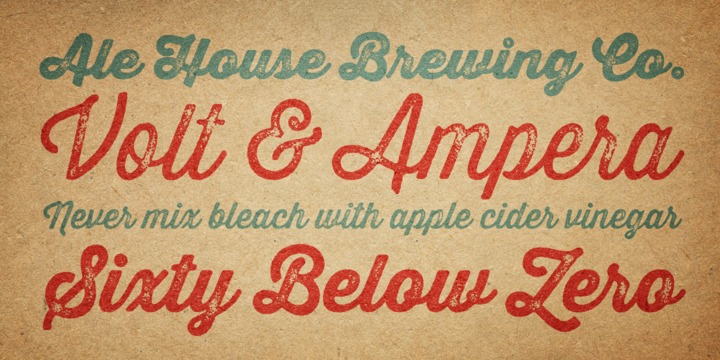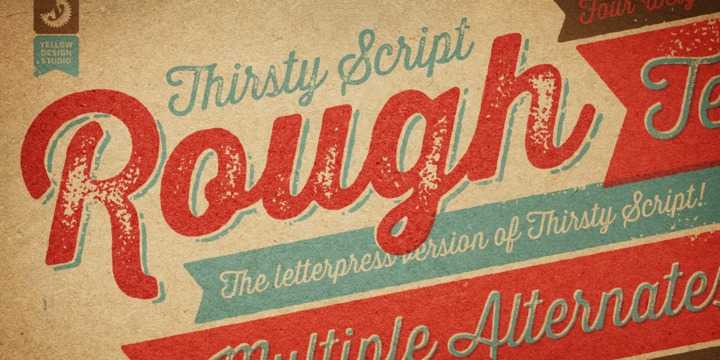
Thirsty Script Rough Font
Thirsty Script Rough Font is widely famous for its bold and italic function. This typeface is similar to the Veneer font and it is available for personal use. It makes fonts appropriate for posters. The package deal is to be had in remarkable styles: emerald or splatter.it’s far outstanding for trademarks, t-blouse designs, and signage.